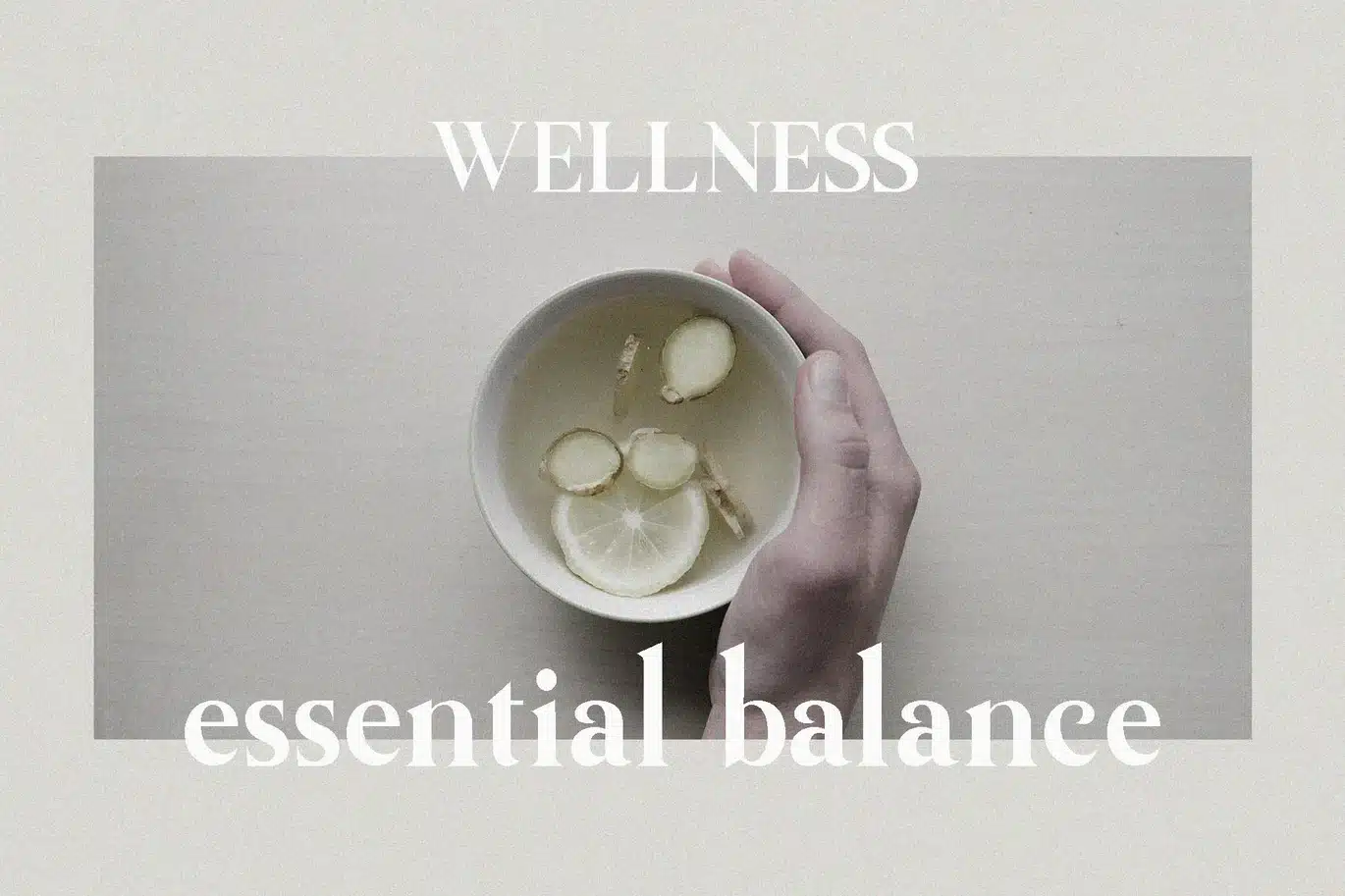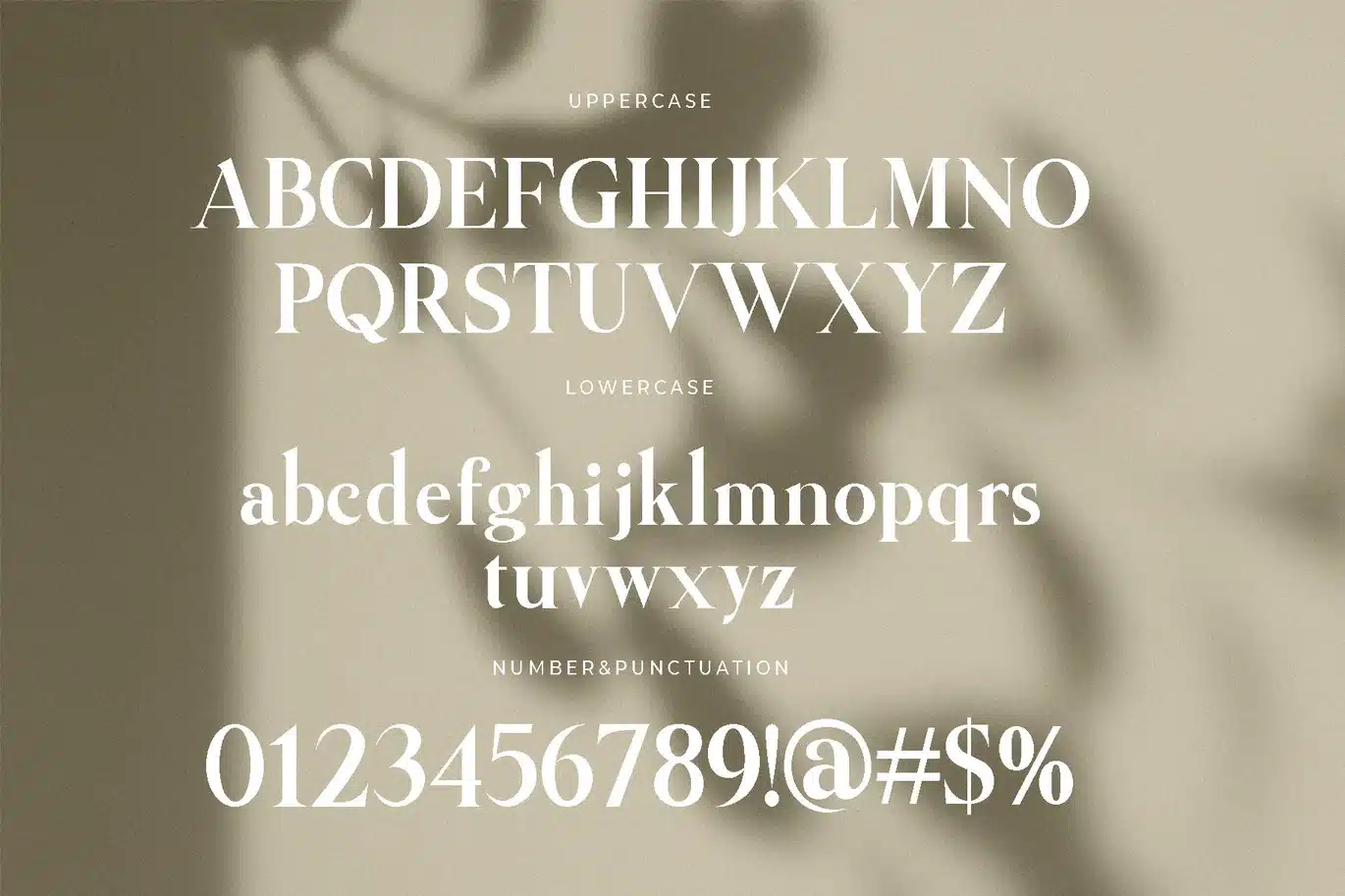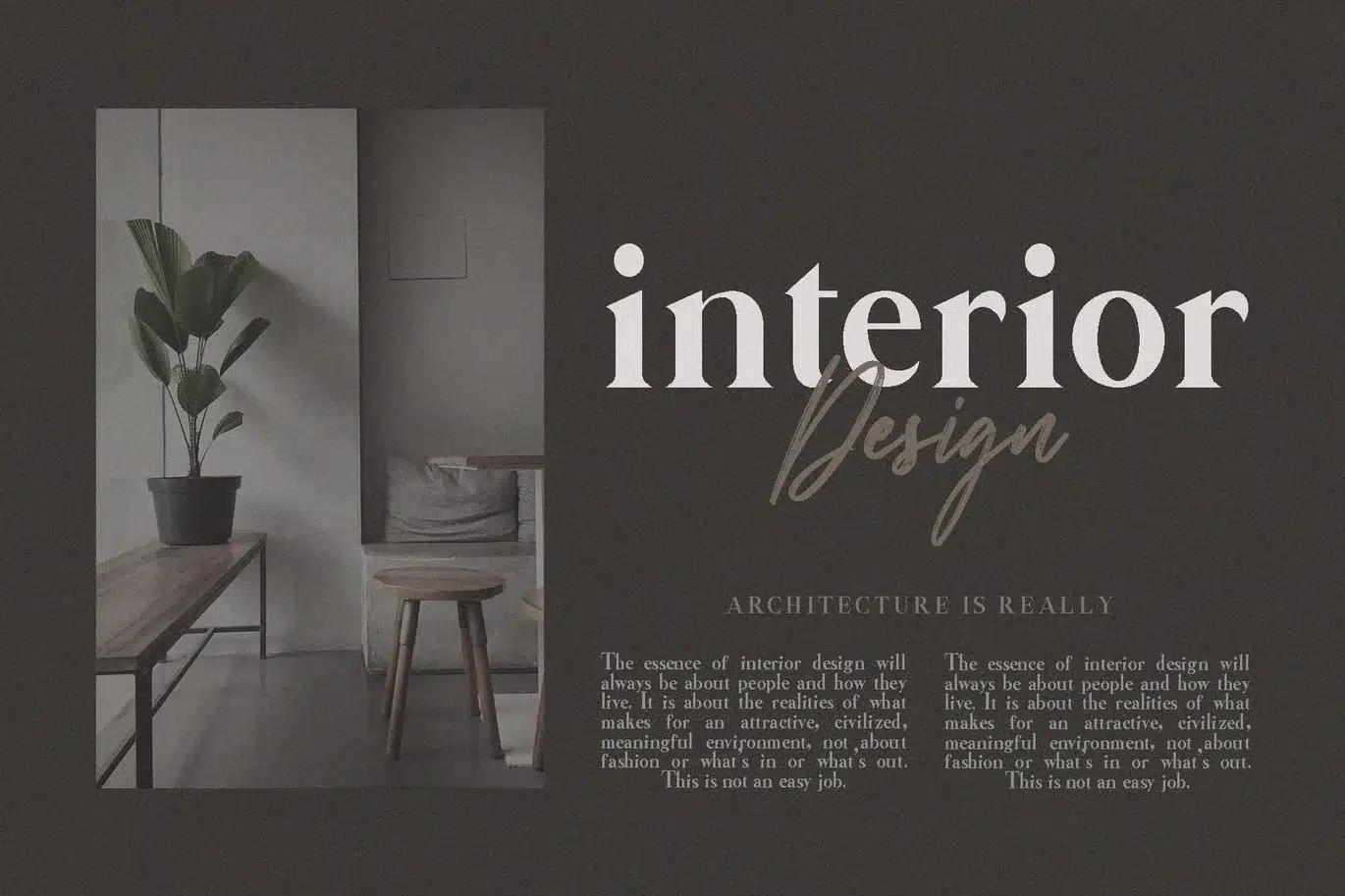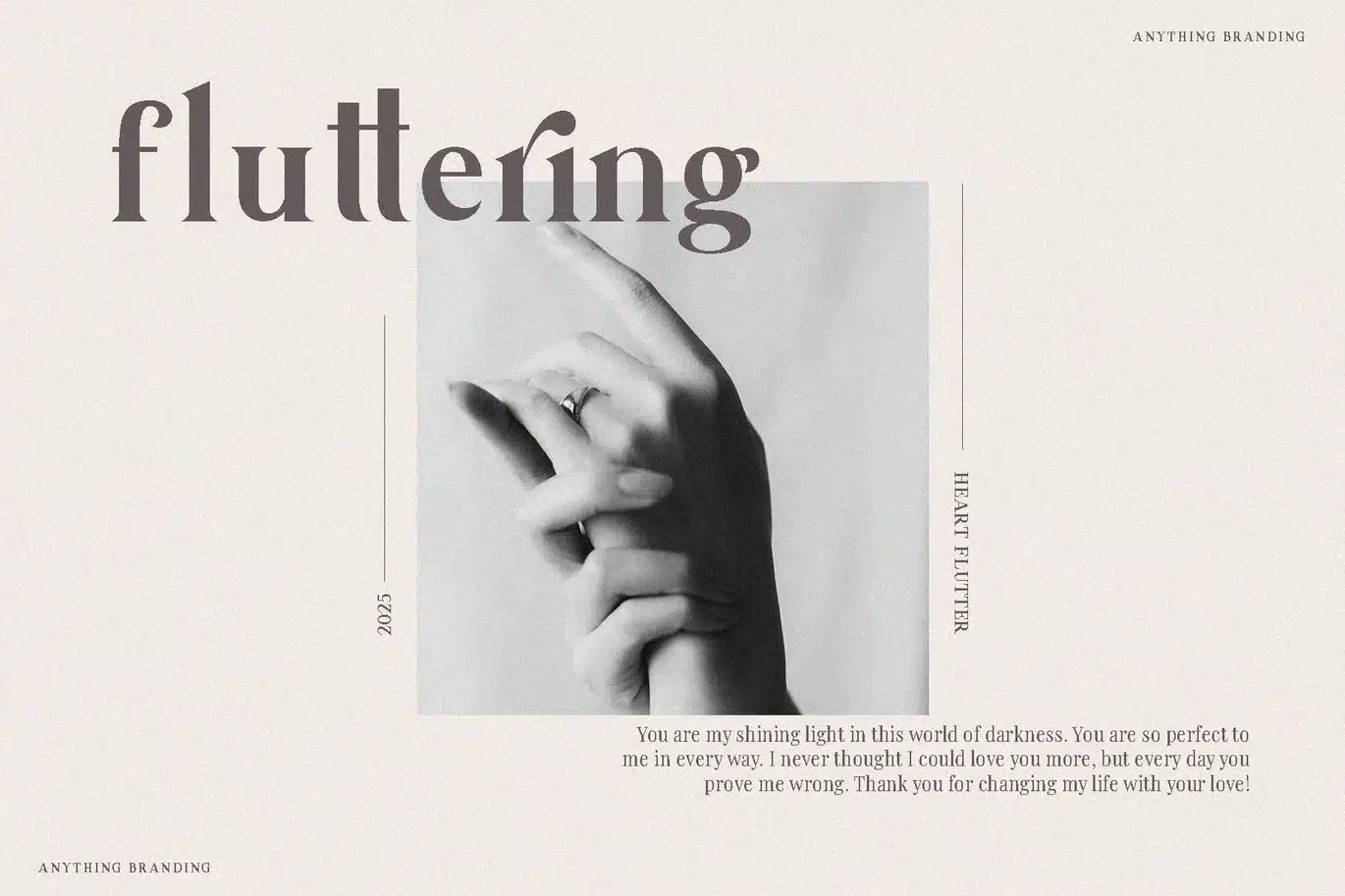
Anything Branding Serif Font
Anything Branding Serif Font – Modern and Stylish Serif Typeface
The Anything Branding Serif Font is a modern and stylish serif font designed to elevate your branding and design projects. With its clean lines and sharp serifs, this font combines classic elegance with a fresh, contemporary look. Therefore, it is perfect for logos, packaging, editorial design, and websites that need a professional yet inviting feel.
Because the font features well-balanced letterforms and clear spacing, it ensures excellent readability. As a result, it works beautifully for both headlines and body text. Moreover, its refined details add sophistication without making the text look stiff or old-fashioned.
In addition, Anything Branding Serif adapts easily to various design needs. Whether you are working on print materials or digital media, this font maintains a consistent and polished appearance. Furthermore, it pairs seamlessly with sans-serif fonts, helping create clean and balanced layouts.
The font’s smooth curves and defined edges give your text a confident and approachable tone. At the same time, it holds up well at smaller sizes, making it suitable for all types of projects.
To summarize, the Anything Branding Serif Font offers:
Clean, sharp serif details
Balanced spacing for easy reading
Modern style with classic touches
Versatility across print and digital
Smooth curves with strong presence
Overall, this font is a smart choice for anyone who wants to add style and clarity to their designs. It helps create professional, attractive projects that are both timeless and modern.